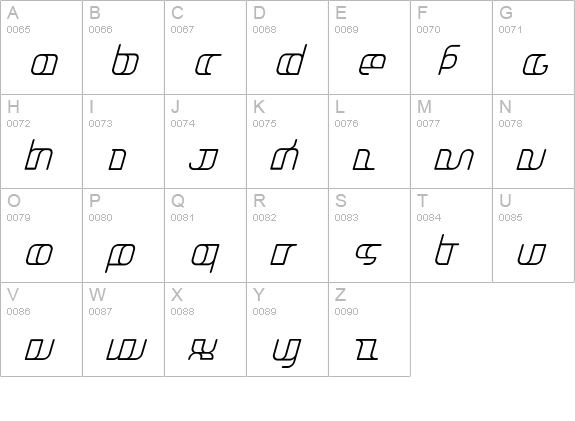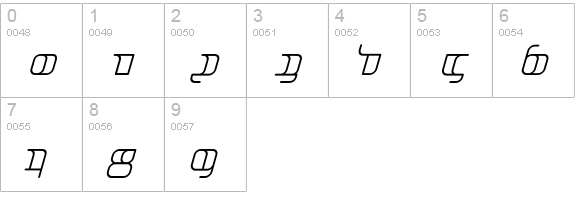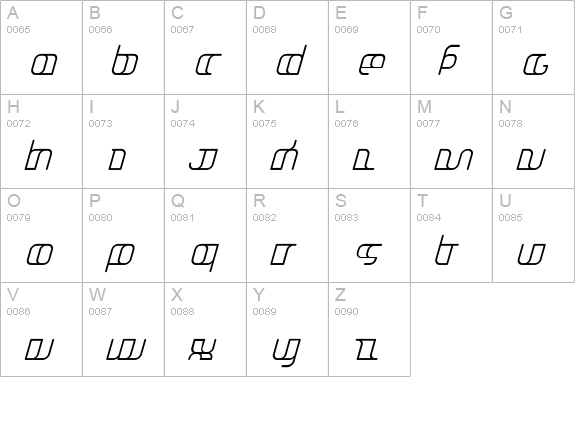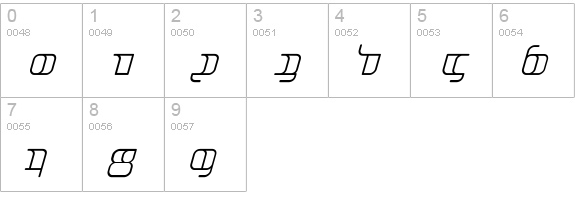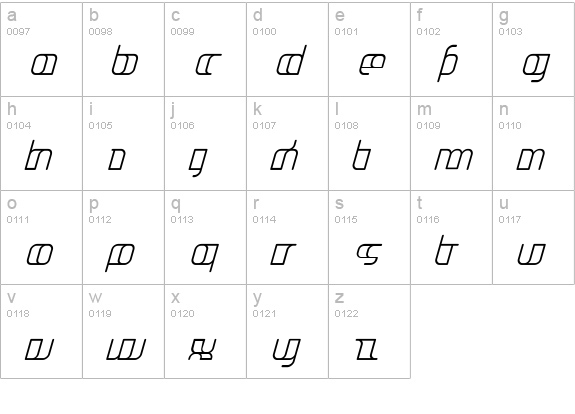
Jakone-Italic is a distinctive, italic variant in the Jakone typeface family \xE2\x80\x94 well suited to design and typography projects.
Jakone-Italic font is a beautifully designed typeface that exudes elegance and sophistication. Its sleek and slanted letterforms add a touch of modernity to any project, making it perfect for creating stunning logos, headlines, and branding materials. The unique characteristics of Jakone-Italic font make it stand out from the crowd. Its slender and elongated letterforms give it a graceful and refined appearance, making it ideal for projects that require a touch of sophistication. The subtle curves and gentle slant of each letter create a sense of movement, adding a dynamic energy to your designs. One of the best things about Jakone-Italic font is that it is free to download at FontsMarket.com. This means that you can enjoy the beauty and versatility of this font without any cost. Whether you are a professional designer or someone looking to add a touch of style to your personal projects, Jakone-Italic font is the perfect choice. With its wide range of glyphs and extensive language support, Jakone-Italic font is suitable for a variety of design projects. From fashion and beauty to luxury brands and high-end products, this font will elevate your designs and make them truly memorable. So why wait? Download Jakone-Italic font for free at FontsMarket.com and unlock a world of design possibilities. Whether you want to create stunning typography for your website, craft eye-catching advertisements, or design elegant packaging, Jakone-Italic font will help you achieve your vision with style and sophistication.